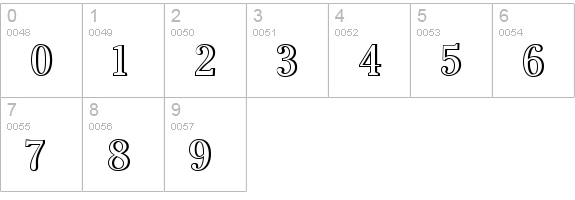
CheltenhamOutlineShadow Font Details
CheltenhamOutlineShadow is a striking and versatile font that adds a touch of elegance and sophistication to any design project. With its unique outline style and subtle shadow effect, this font exudes a sense of modernity while still maintaining a classic charm. Perfect for use in headlines, posters, invitations, and more, CheltenhamOutlineShadow is sure to make a bold statement. The best part? CheltenhamOutlineShadow is available for free download at FontsMarket.com. Whether you're a designer looking to add a special touch to your creations or simply someone who appreciates beautiful typography, this font is a must-have in your collection. Download CheltenhamOutlineShadow today and elevate your designs with its timeless appeal.